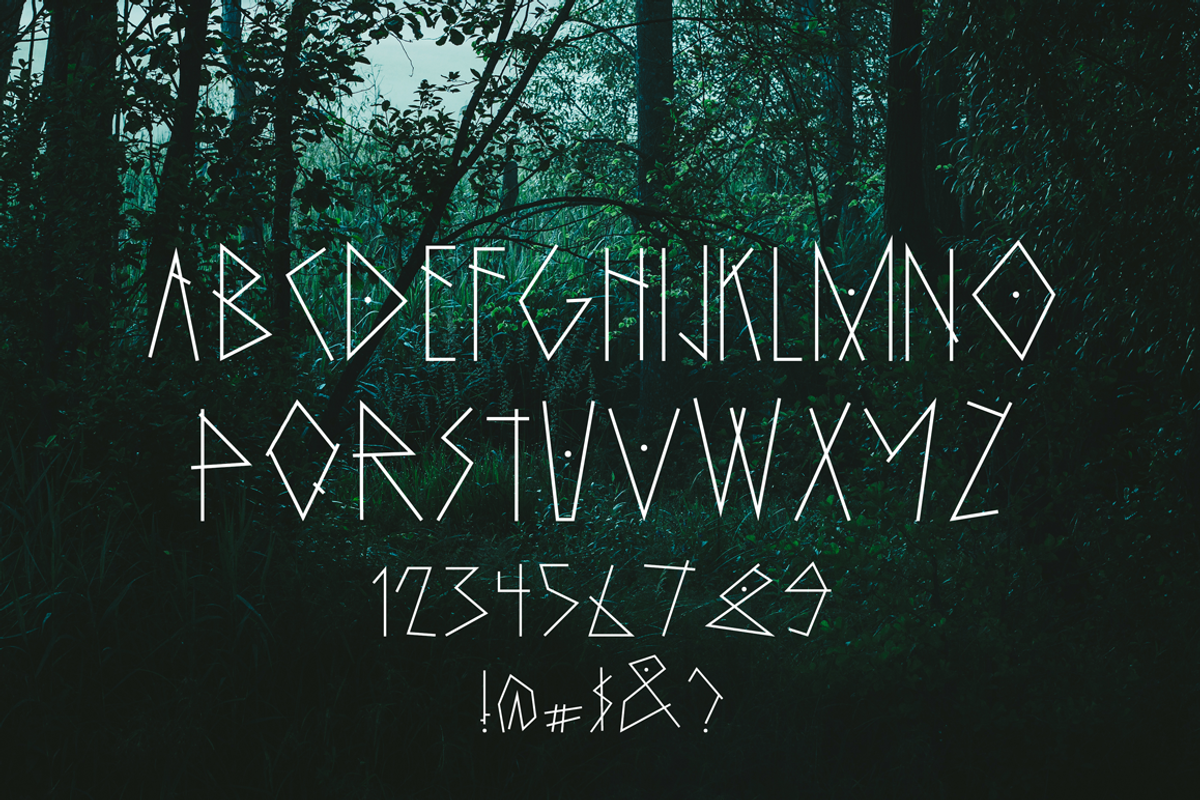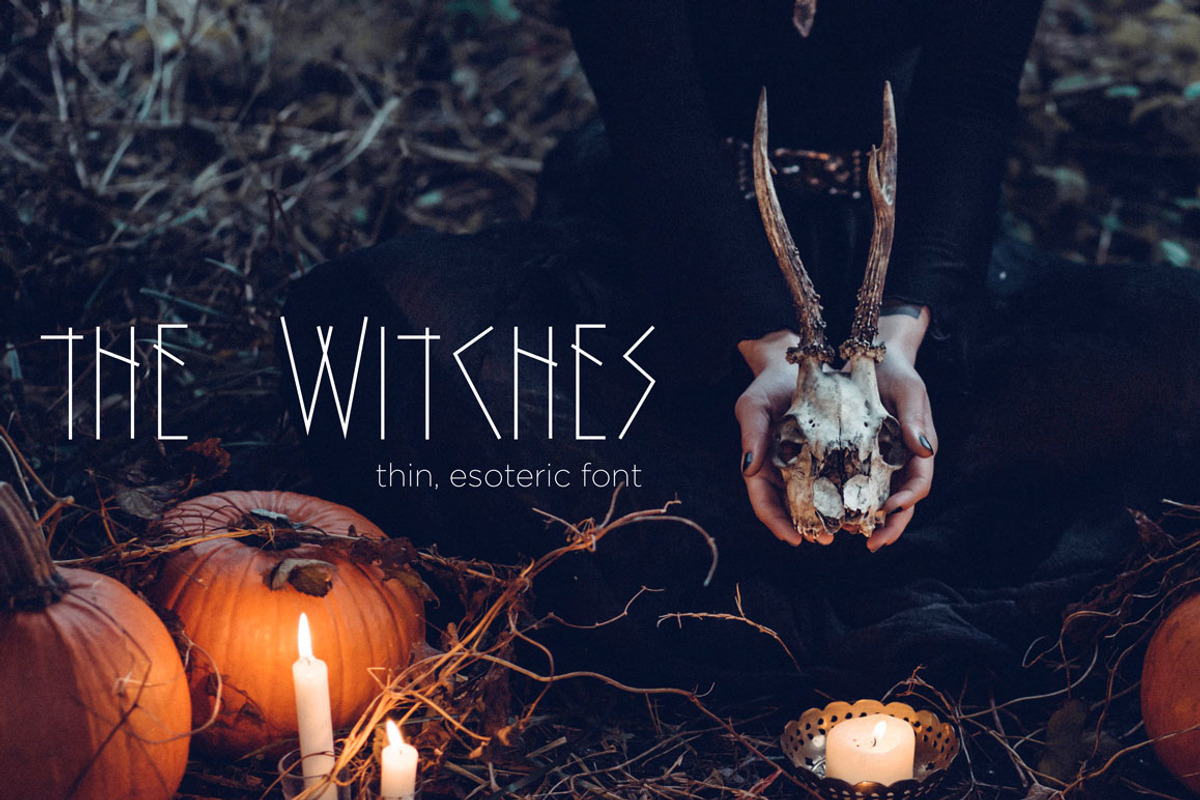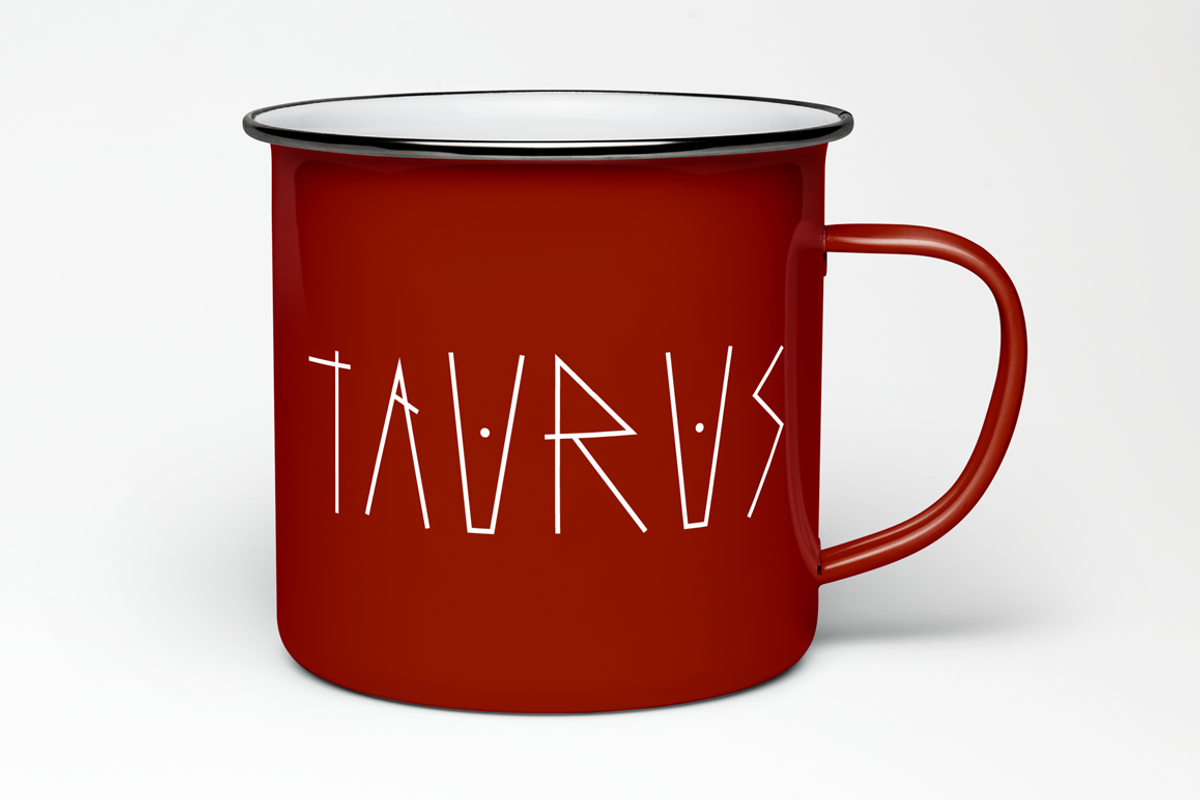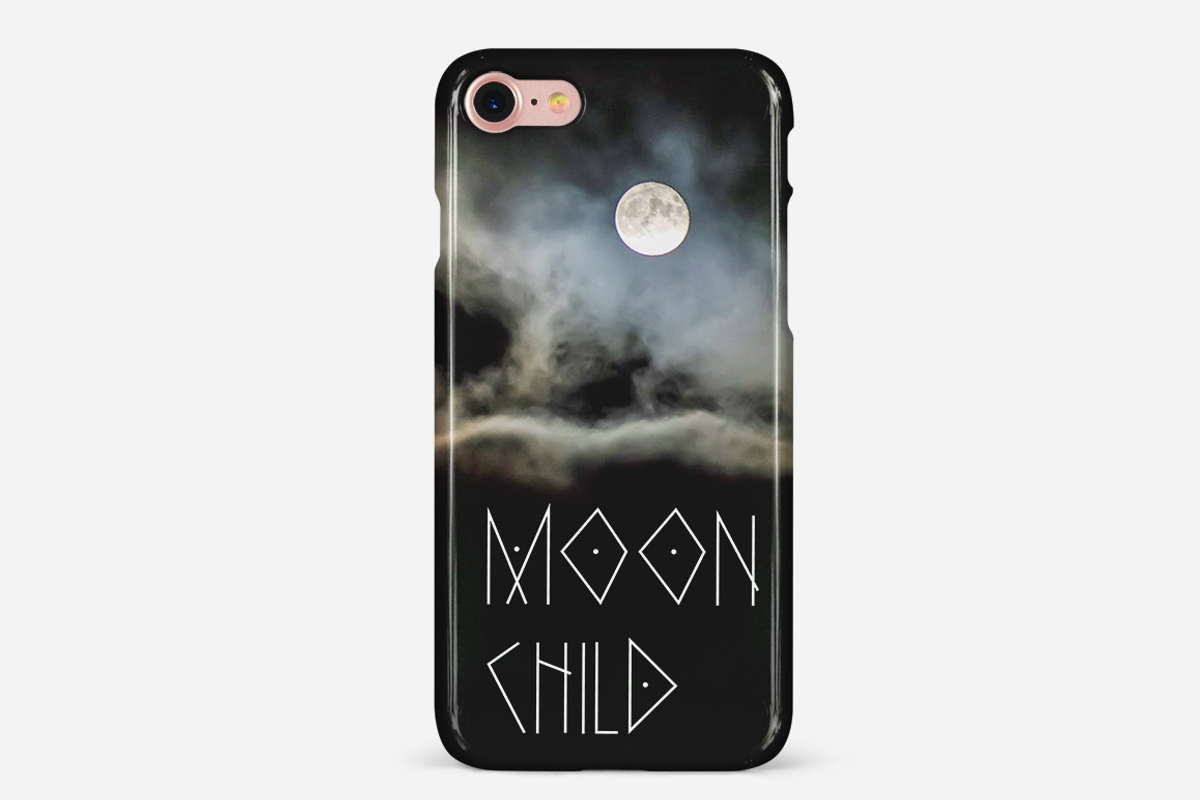
The Witches Font
The Witches font was lovingly created for all your esoteric or Halloween needs! This font would be great for logos, event titles, social media posts, or even merchandise. This font is only uppercase, but it will work with caps lock on or off. Numbers and basic punctuation are included. Also included are .otf, ttf, and web safe fonts - which means you can use it anywhere, on any computer.
- Numbers and basic punctuation are included.
- This font is only uppercase, but it will work with caps lock on or off.
- The Witches Regular